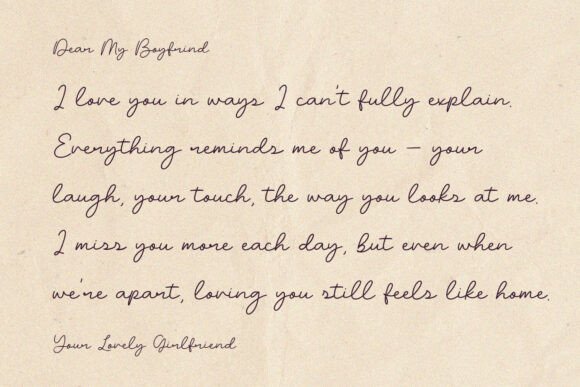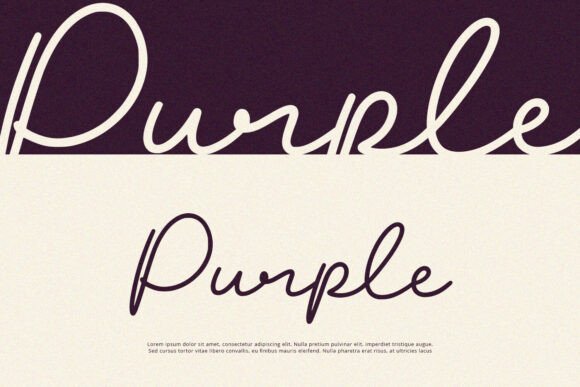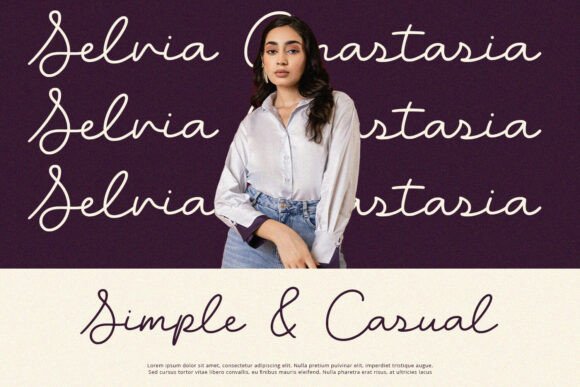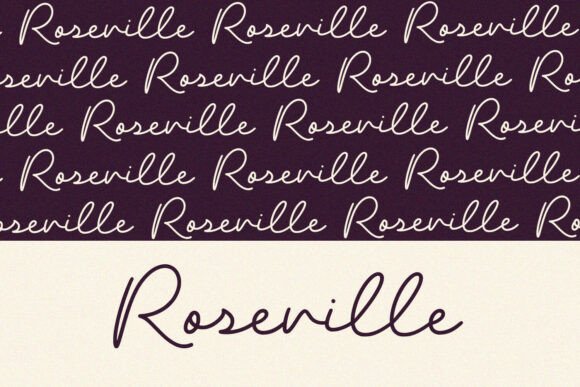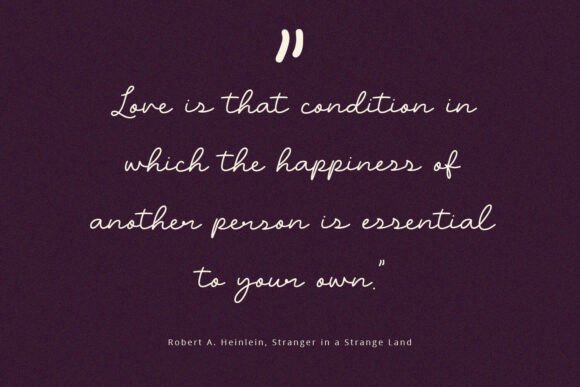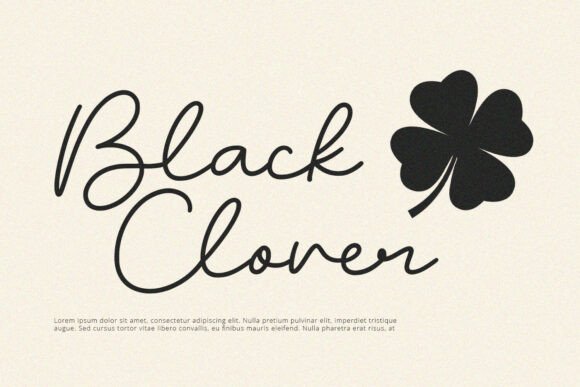
The Perfect Script for Elevating Your Designs
You know that feeling when you’re brainstorming a new project, and suddenly, the perfect idea strikes? The vision is clear, the message is conveyed, and it all comes together in a beautiful, elegant way. For designers, this moment is often the result of finding the right typography to match their creative vision. That’s where the Blush Font comes in – a stunning monoline script that exudes effortless sophistication and adds a touch of luxury to any project.
Blush Font is designed to capture the essence of authentic handwriting while maintaining perfect readability, making it a valuable asset for designers. Its clean, consistent weight ensures that your message is conveyed clearly, while the fluid stroke and beautifully looping connections add a personal touch that’s hard to resist. Whether you’re working on premium branding, wedding invitations, or social media graphics, the Blush Font is the perfect addition to elevate your designs and lend a unique, modern voice to your next project.
Key Features of Blush Font
- Unique Characteristics: Blush Font features a soft, feminine script style with subtle flair and elegance, making it ideal for wedding invitations, greeting cards, and other feminine designs.
- Font Weight: Blush Font comes in multiple weights, including light, regular, bold, and italic, allowing for flexibility in design applications.
Blush Font Review
I’ve had the chance to play around with the Blush Font, and here’s my honest take.
- ✨ Elegant and feminine touch: Blush Font is perfect for projects that require a touch of softness and delicacy.
- ✨ Highly legible: The font is easy to read, even at smaller sizes, making it a great choice for body text or captions.
- ✨ Beautiful letterforms: The lettering in Blush Font is intricate and well-designed, adding to its overall charm.
- ⚠️ Limited versatility: Blush Font may not be the best choice for projects that require a bold or modern look.
- ⚠️ May not work well for small text sizes: While the font is legible, it may become difficult to read when used in very small sizes.
- ⚠️ Not suitable for high-contrast backgrounds: The font’s delicate design may get lost on high-contrast backgrounds, making it harder to read.
Overall, I think Blush Font is a beautiful choice for projects that require a touch of elegance and femininity. While it may have some limitations, it’s definitely worth considering for the right project. With a little care and attention to usage, Blush Font can be a lovely addition to your design toolkit.
Getting the Most Out of Blush Font
For best results, use Blush Font in combination with soft pastel colors and delicate illustrations. It’s perfect for feminine and elegant designs, such as wedding invitations, baby shower invitations, or fashion branding.
Blush Font is commonly used for:
– Baby shower invitations and decor
– Fashion branding and marketing materials
– Beauty and wellness branding and packaging
Alternatives to Blush Font
Ostra Font
Ostra Font is a elegant, handwritten font perfect for creating a romantic and whimsical atmosphere. It is ideal for use in wedding invitations, greeting cards, and other design projects that require a touch of sophistication and femininity. Ostra Font has a more refined and polished look compared to Blush Font, making it suitable for a wider range of applications.
Carolyna Pro is a modern, script font that exudes luxury and elegance. It is perfect for use in high-end branding, advertising, and editorial design projects. While Blush Font has a softer and more delicate look, Carolyna Pro has a more dramatic and sophisticated feel, making it suitable for projects that require a touch of glamour and sophistication.